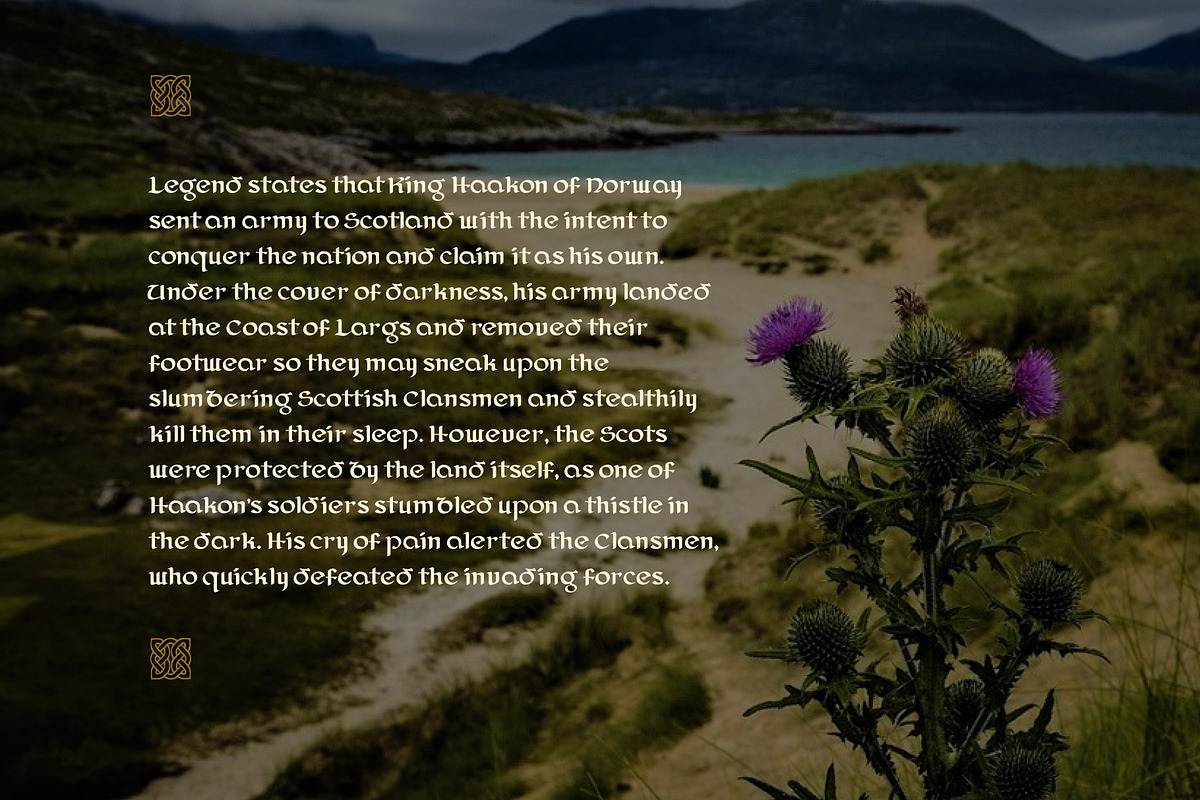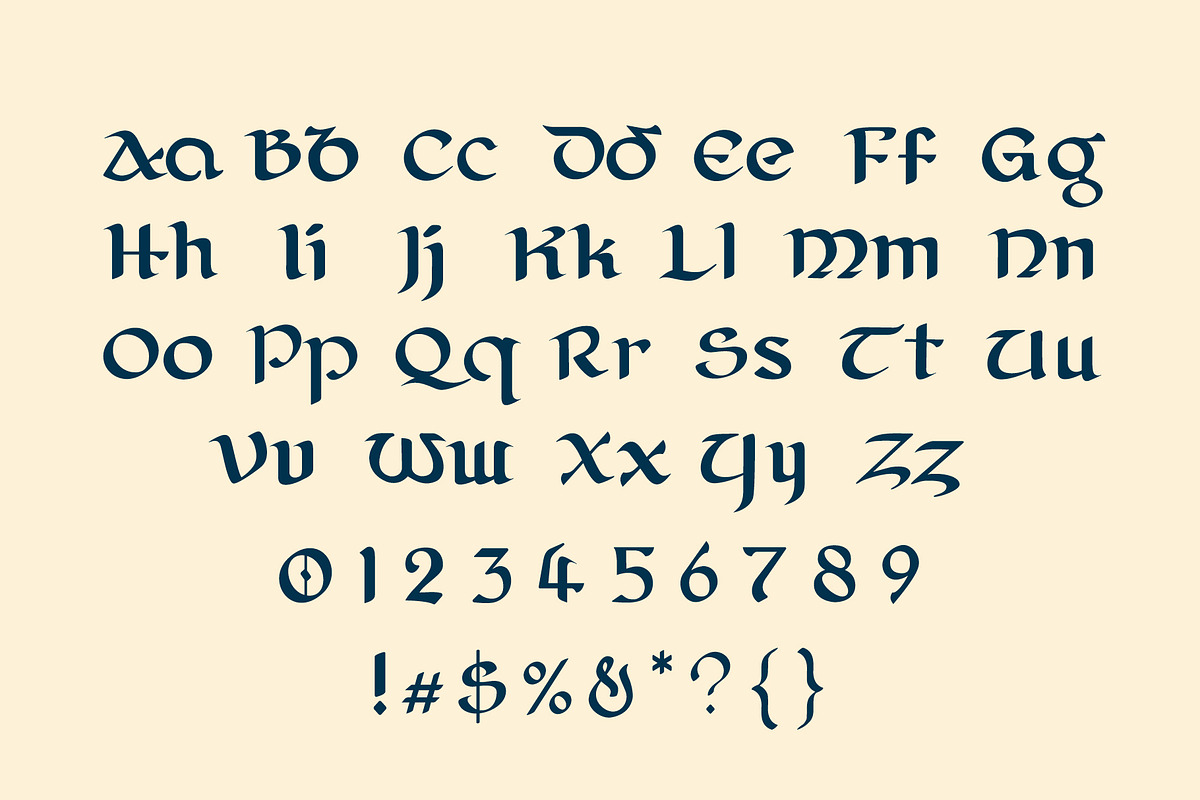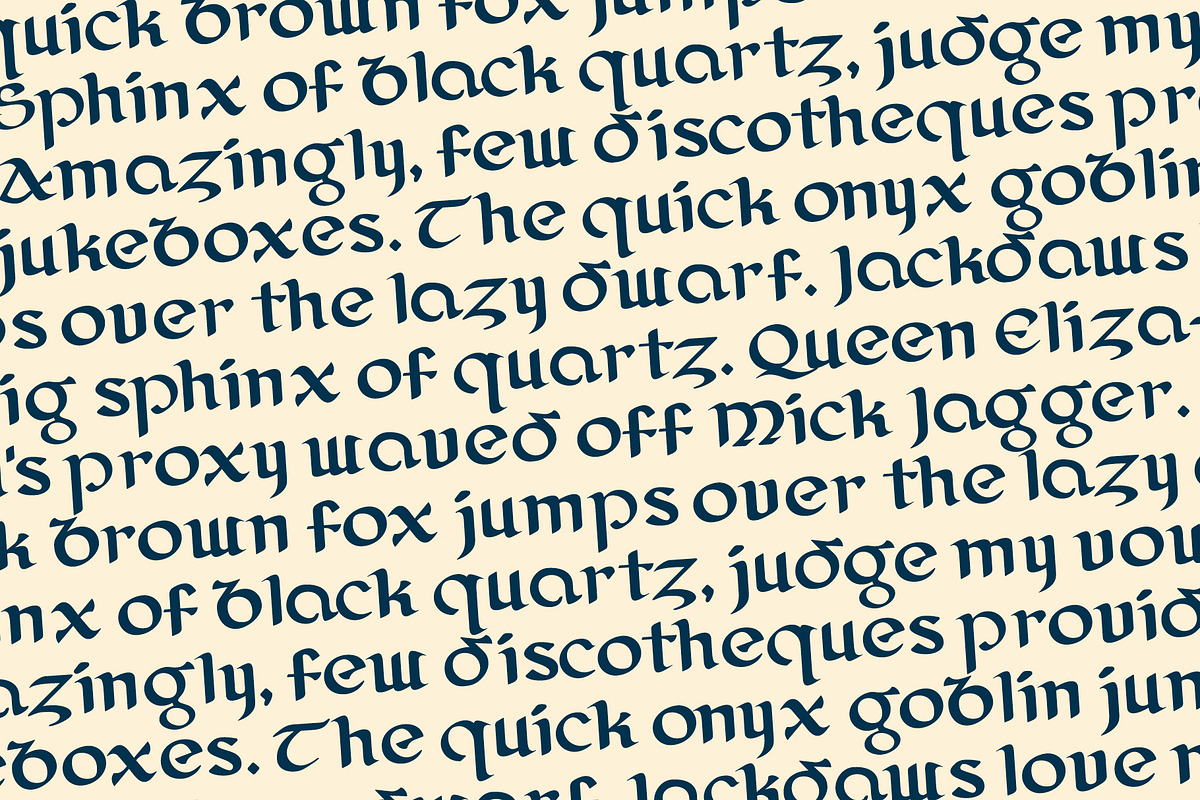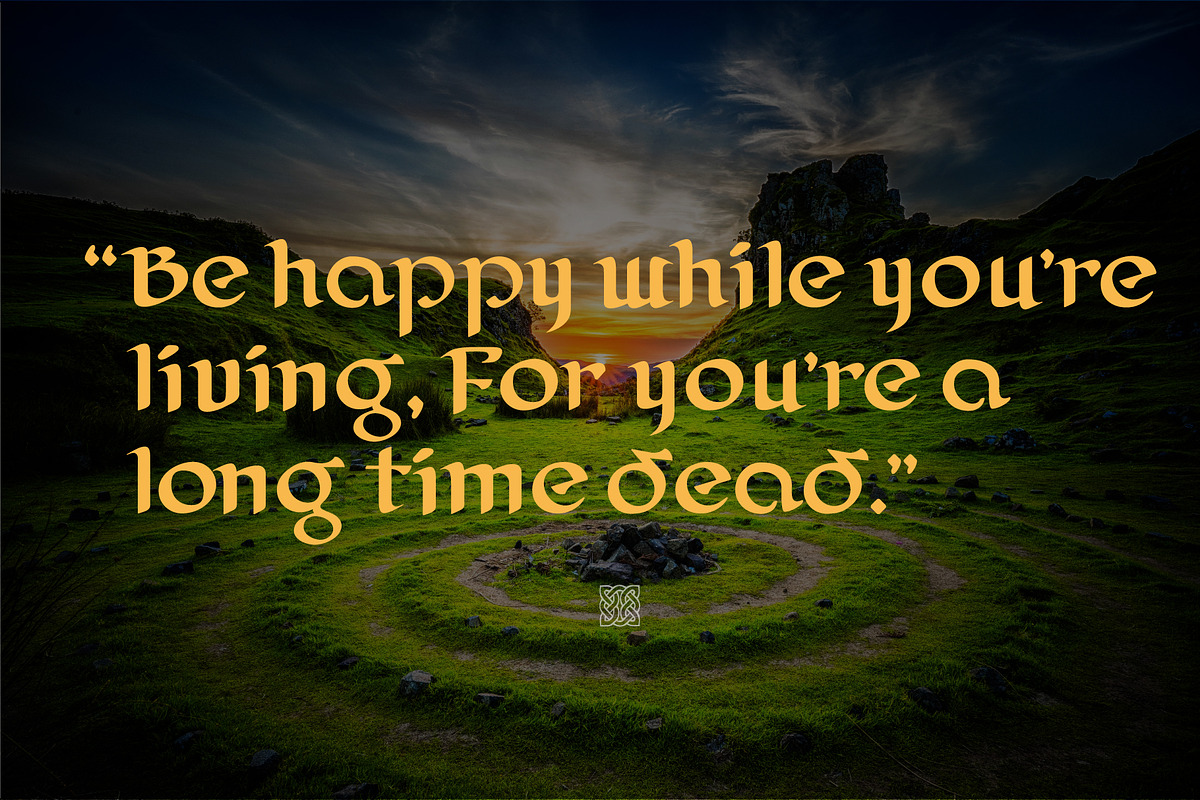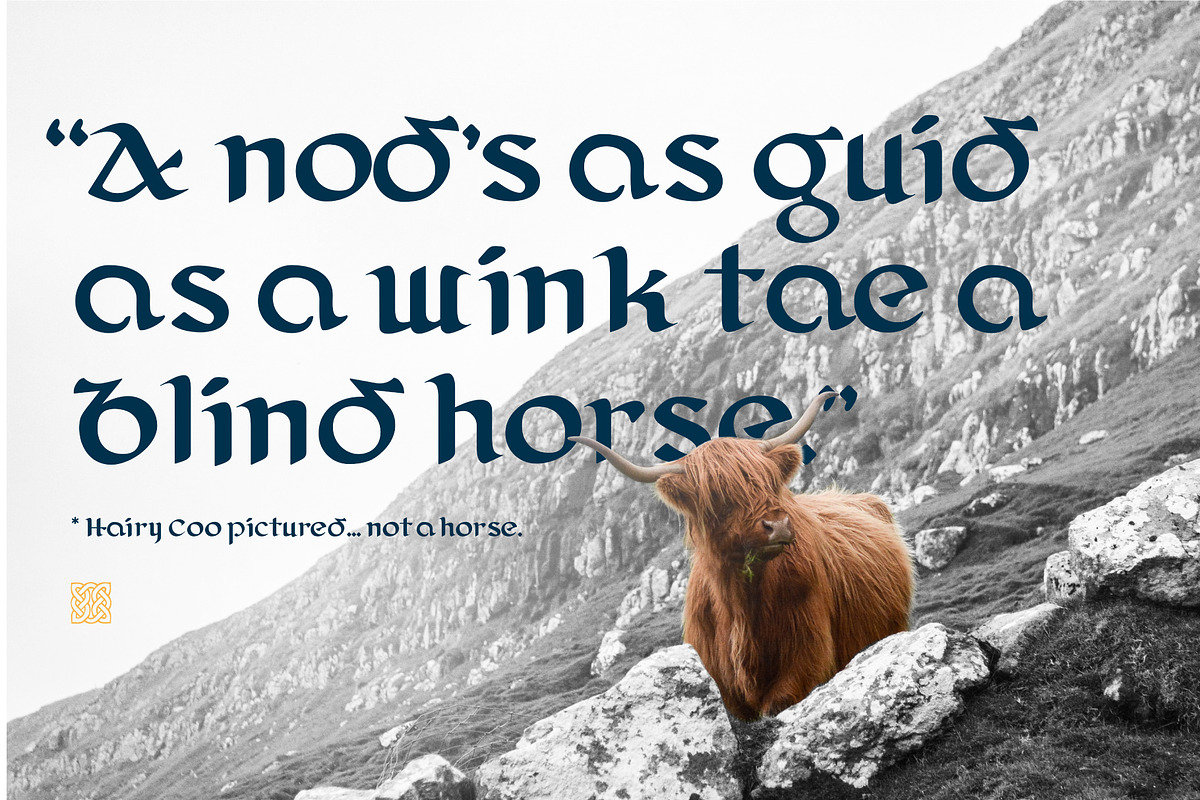
Caledonian
A Scottish variant on Celtic and Norse scripts. Caledonia is the Latin name given by the Romans to the land in today's Scotland north of their province of Britannia. Great for any historical or fantasy project.